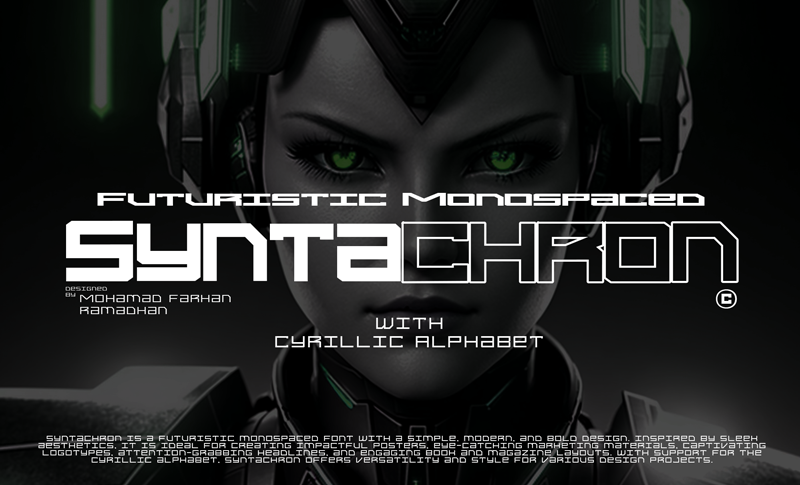
Font name: | Syntachron |
Author: | Mohamad Farhan Ramadhan |
Note by Mohamad Farhan Ramadhan | |
Syntachron is a futuristic monospaced typeface that combines simplicity, modernity, and boldness. Designed for versatility, it boasts 12 variable styles that adapt to various design needs. With its sleek Cyrillic alphabet, Syntachron is perfect for creating captivating posters, impactful marketing materials, captivating logos, eye-catching headlines, and engaging book and magazine layouts. Whether you're seeking a contemporary look or a cutting-edge aesthetic, Syntachron is the ideal choice for a wide range of design applications. ______________________________________________________ By installing or using this font, you are agree to the Product Usage Agreement: - This font is already FULL VERSION and ONLY for PERSONAL USE. NO COMMERCIAL USE ALLOWED! - Here is the link to purchase COMMERCIAL LICENSE: https://fontbundles.net/mofr24-work/2600920-syntachron-retro-futuristic-dystopia-mecha-gundam - If you need a CUSTOM LICENSE or CORPORATE LICENSE please contact us at: mofr24.artwork@gmail.com - Any donation are very appreciated. Our Paypal account for donation : https://paypal.me/avieora Please visit our store for more amazing fonts : https://www.creativefabrica.com/ref/401336/ More... |